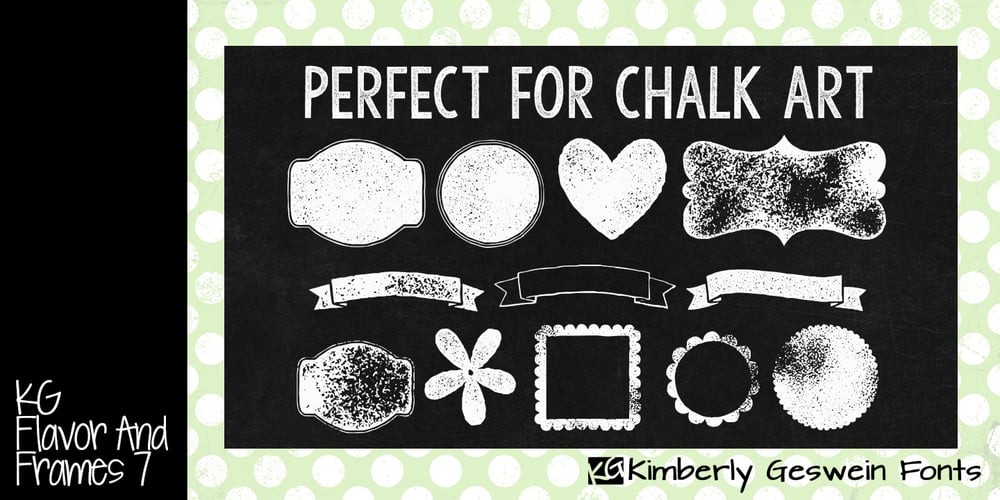
KG Flavor And Frames Seven Font Family was designed by Kimberly Geswein and published by Kimberly Geswein. KG Flavor And Frames Seven contains 1 styles and family package options. Decayed and stamped highly textured frames and decorations. Perfect for chalkboard art.